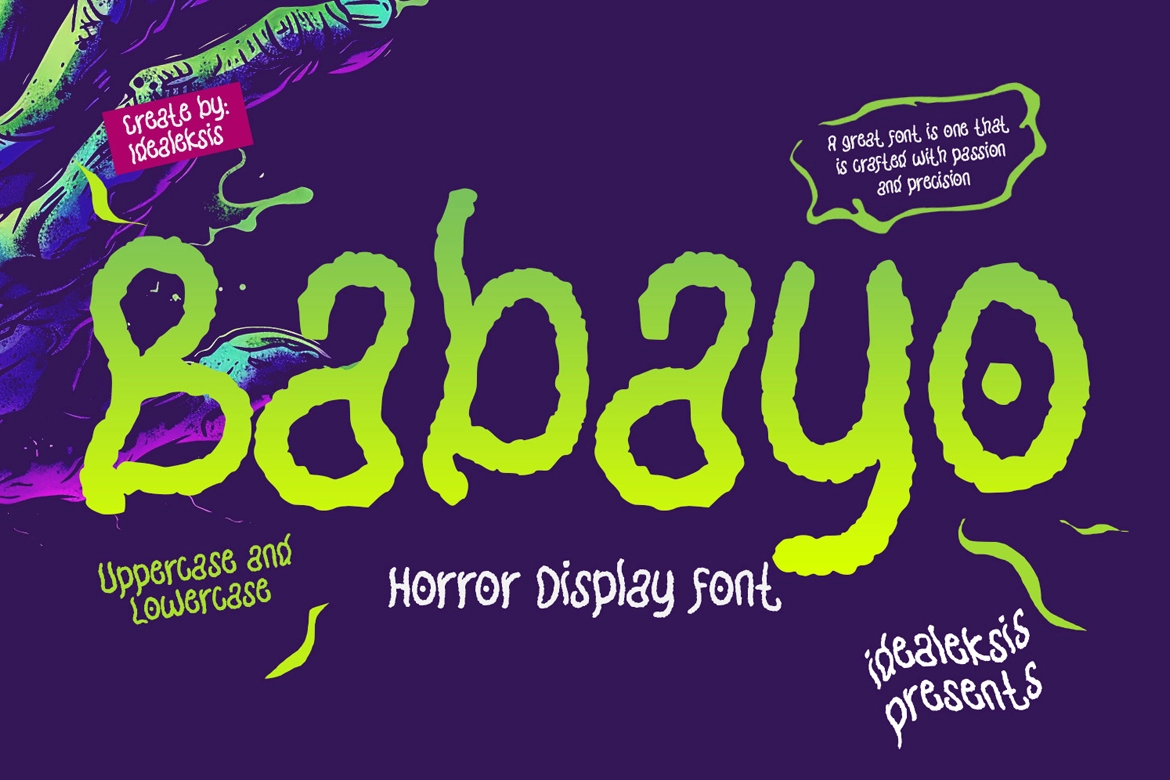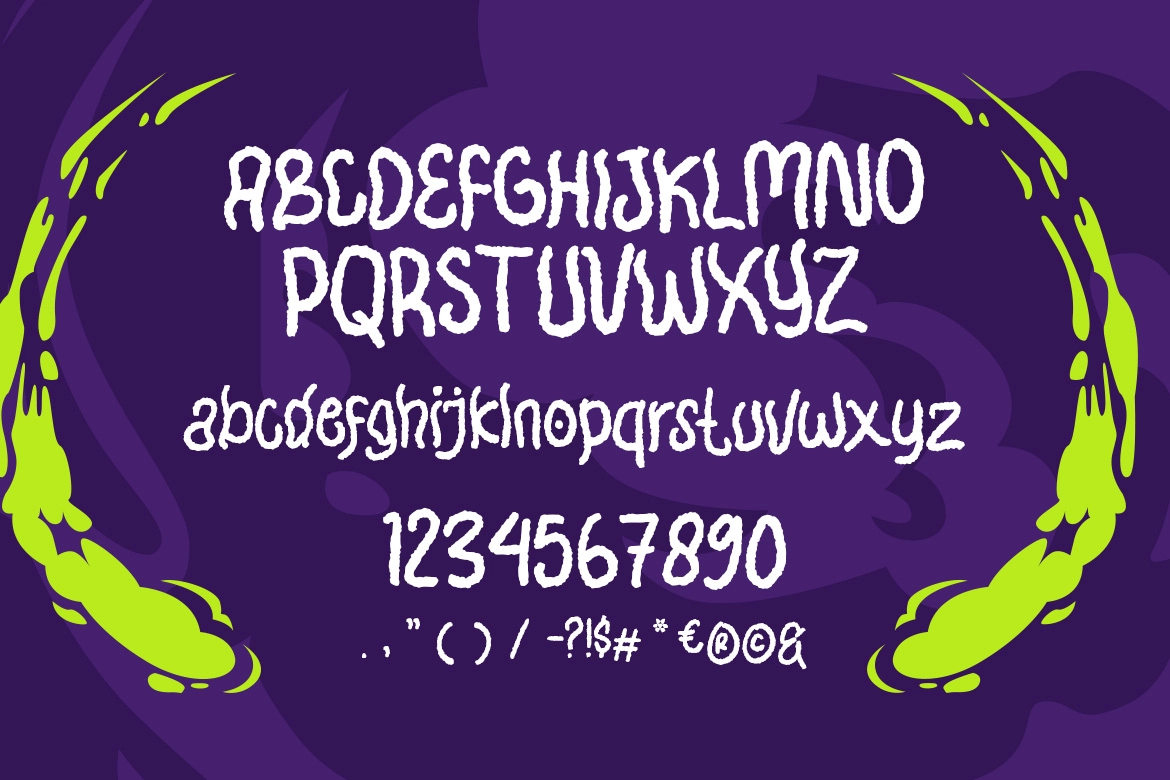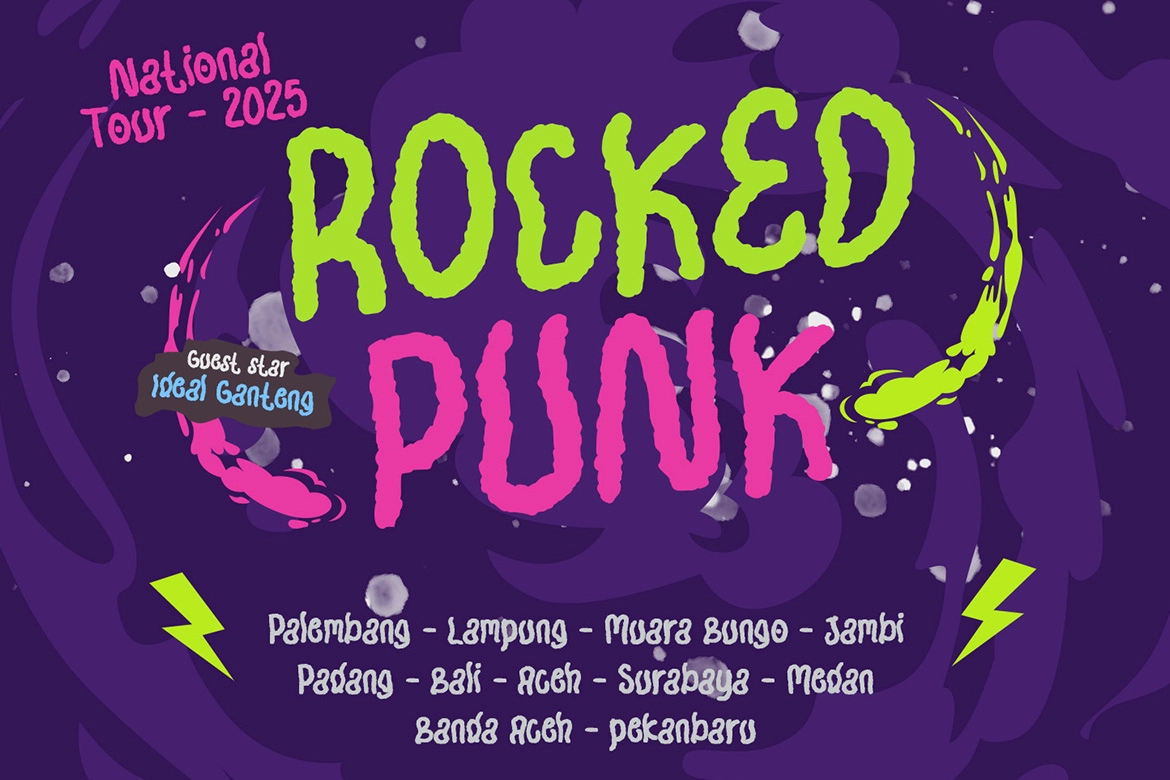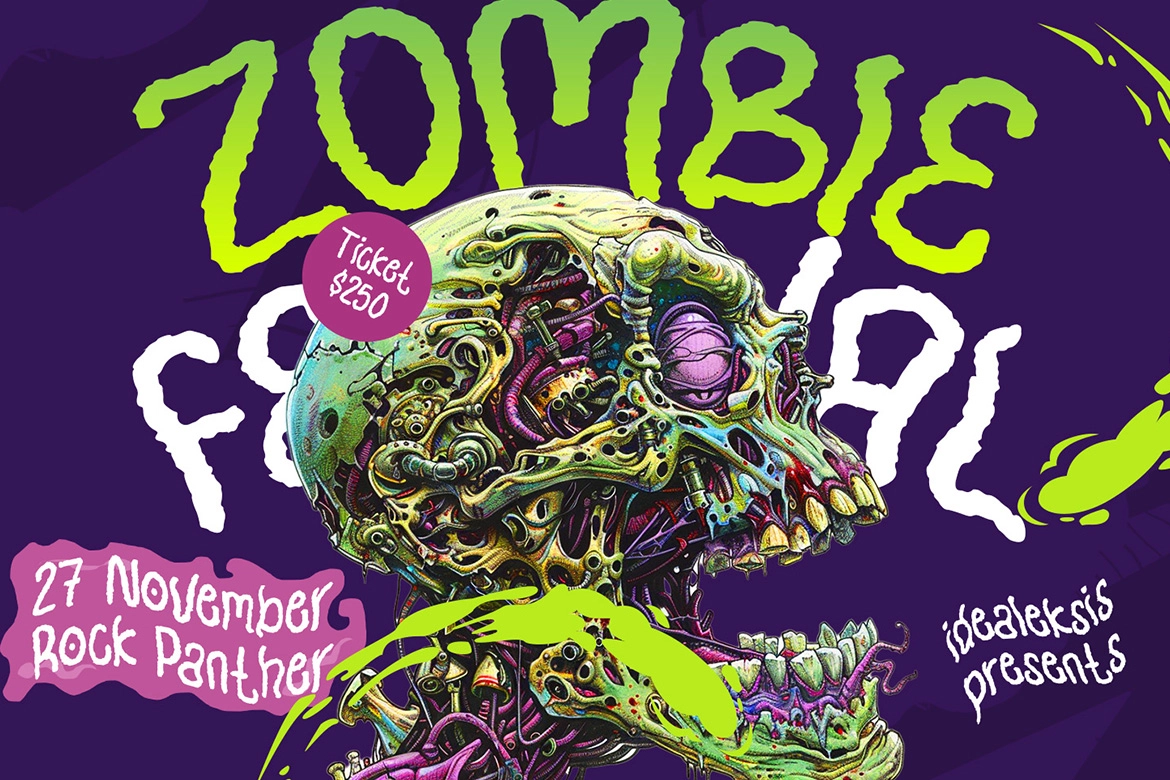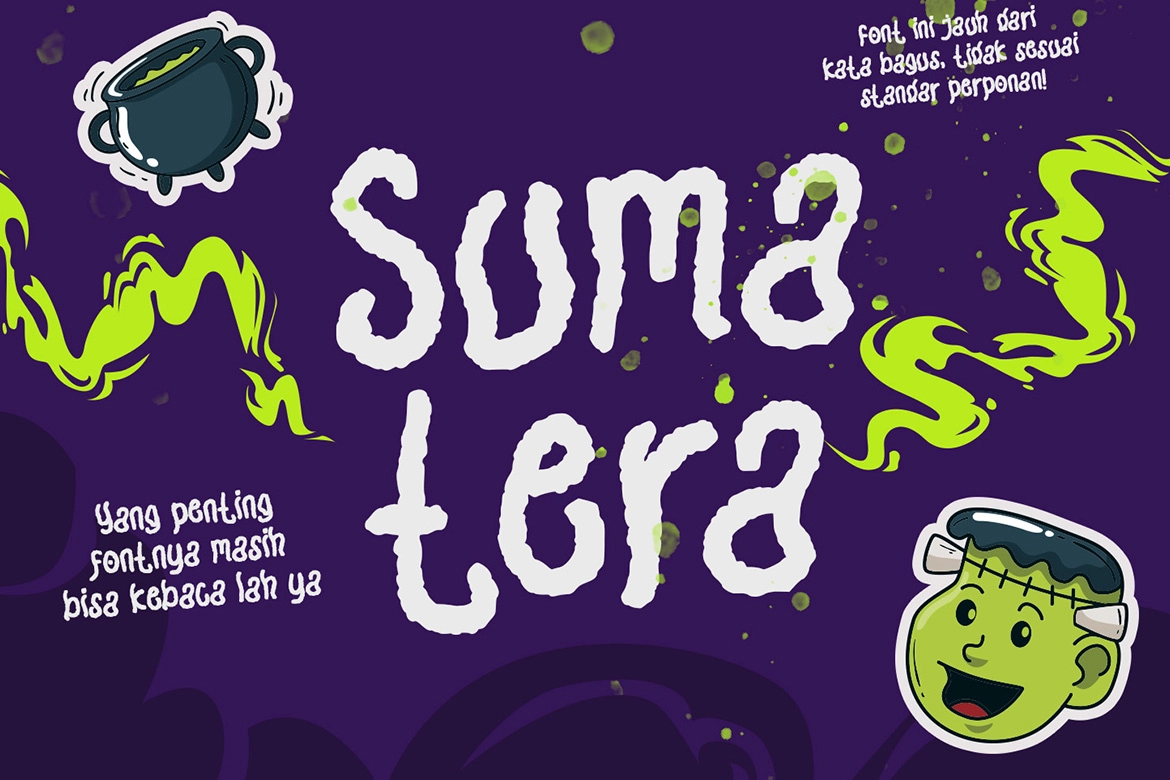
Babayo – Playful Horror Display Font
Babayo
Babayo – Playful Horror Display Font is a bold and expressive typeface featuring thick, rounded, and irregular letterforms inspired by organic, slime-like shapes. Its textured, dotted surface and slightly wavy outlines create a unique balance between playful charm and eerie horror aesthetics, making it instantly eye-catching and full of personality.
Designed for standout visuals, this font is perfect for posters, Halloween designs, quirky branding, kids horror themes, and creative projects that need a fun yet spooky vibe. The heavy, hand-drawn appearance ensures strong readability at large sizes while adding a distinctive, unconventional touch to any composition.
- Playful horror slime-inspired style